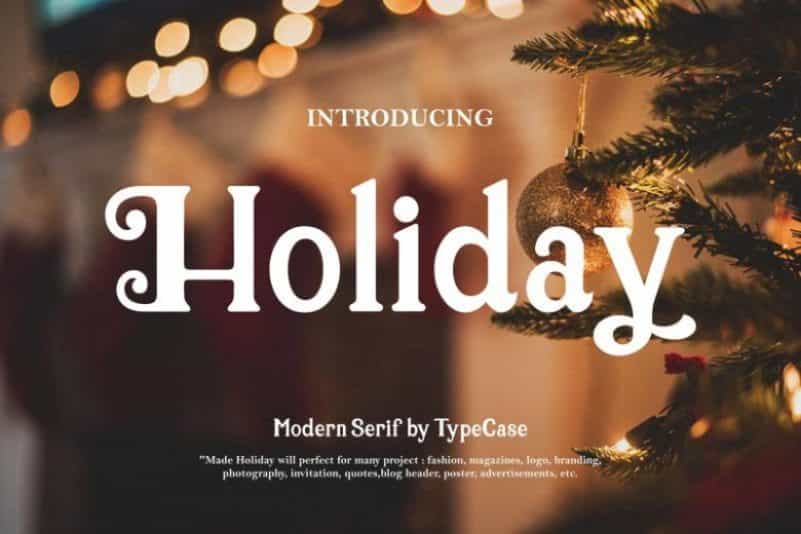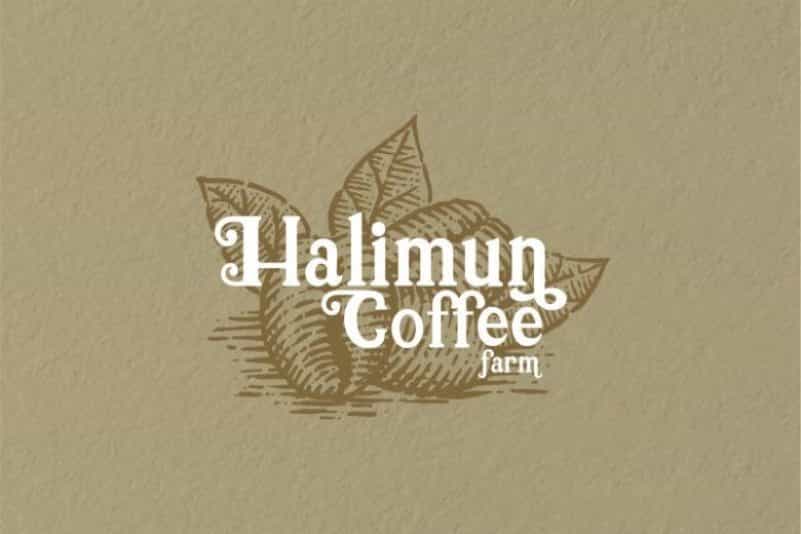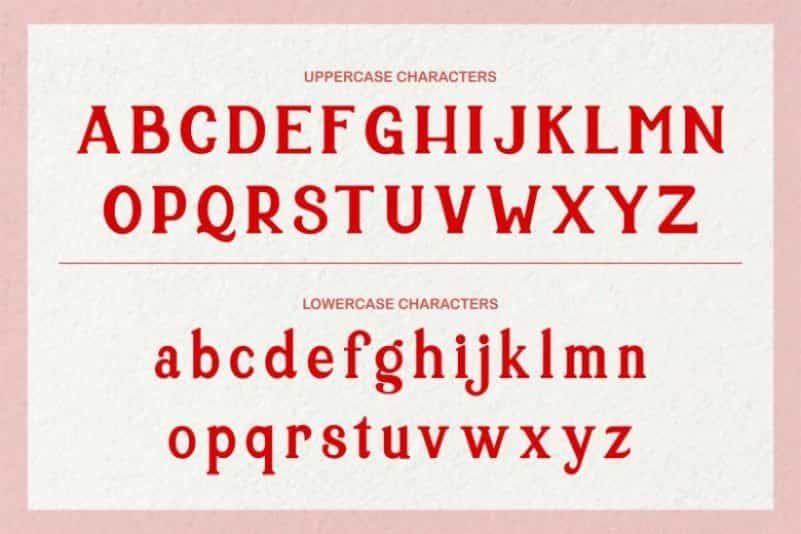
Holiday is an elegant serif that can be used in any design project. This typeface has a lot of stylistic alternates with swashes that can make your lettering/logotype to be more unique. The clear and concise of a serif coupled with the curvatures of swash makes this font unique.